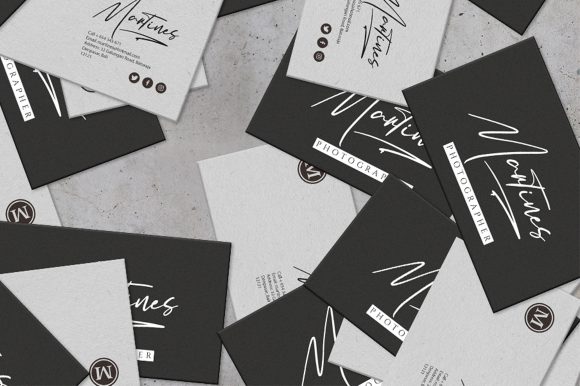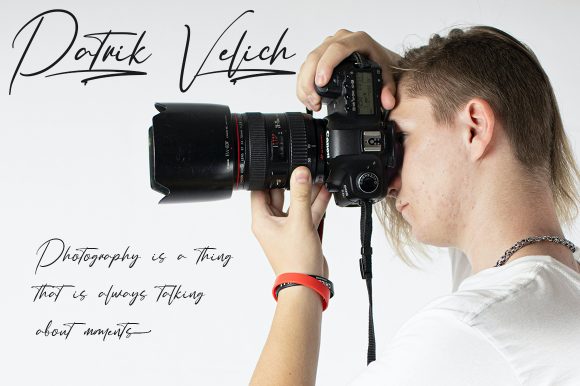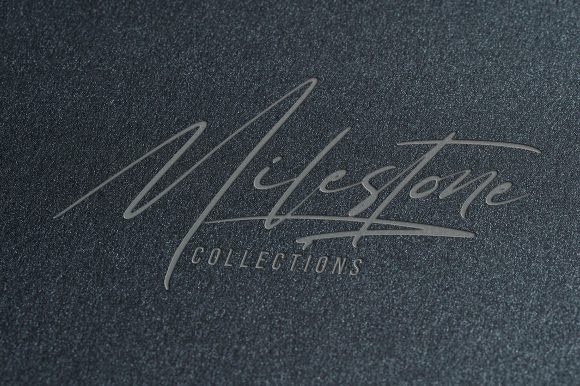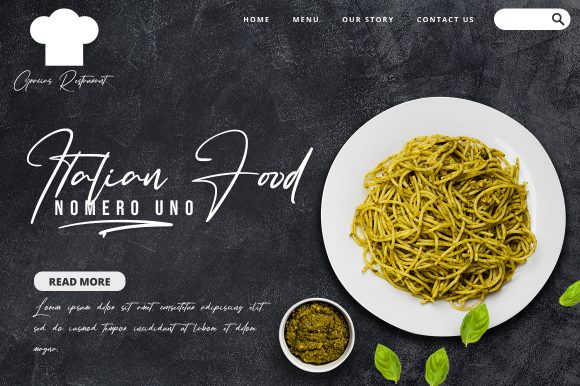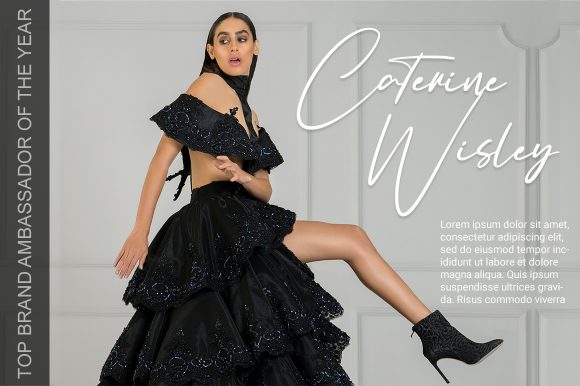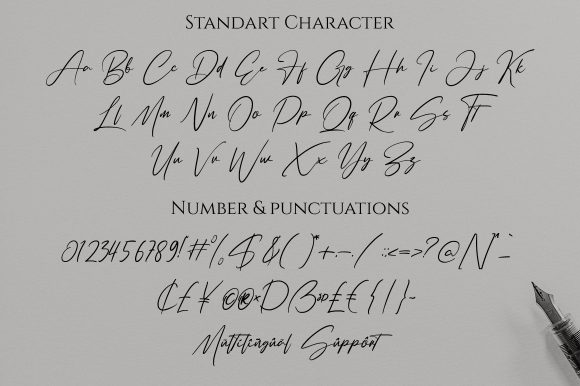
Introduction to Sailendra Font
Have you ever been working on a creative project, pouring your heart and soul into every detail, only to feel like something’s missing? That’s when the perfect design resource can make all the difference. For designers looking to add a touch of elegance and sophistication to their work, the Sailendra Font is a game-changer.
With its unique, handwritten style and beautiful touches, the Sailendra Font is the perfect choice for creating eye-catching logos, branding, and quotes. Whether you’re working on a high-quality design project or just need a free download to spice up your social media graphics, this font is sure to impress.
One of the best things about the Sailendra Font is its versatility. With PUA encoding, you can access all of the glyphs and swashes with ease, giving you endless possibilities for creative expression. And with a transparent background, you can seamlessly integrate it into your design without any fuss.
Key Features of Sailendra Font
- High-quality design resource ideal for creative projects, offering a unique and elegant aesthetic.
- Unique characteristics include intricate details and a sophisticated feel, making it perfect for luxury and high-end branding projects.
Honest Review: Sailendra Font
As a designer, I’m always on the lookout for high-quality fonts that can elevate my creative projects. Recently, I stumbled upon the Sailendra Font, and I must say it’s a gem. The Sailendra Font is a beautiful, free download that offers a unique and elegant design aesthetic.
What works well about the Sailendra Font is its versatility. It’s perfect for a wide range of creative projects, from print materials to digital designs. The font is available in both regular and bold weights, making it easy to customize and pair with other fonts. Additionally, the font’s transparent background makes it easy to layer and combine with other design elements.
Pros and Cons:
- ✨ High-quality design aesthetic
- ✨ Versatile and suitable for various creative projects
- ✨ Available in regular and bold weights
- ✨ Transparent background for easy layering
- ⚠️ Limited language support (only Latin script)
- ⚠️ Not suitable for projects that require complex typography
Overall, I’m thoroughly impressed with the Sailendra Font. It’s a fantastic addition to any designer’s arsenal, and I highly recommend it for any creative project. Just be aware of its limitations, and you’ll be all set to create stunning designs with this beautiful font.
Tips for Getting the Most Out of Sailendra Font
To get the most out of the Sailendra Font, use it in conjunction with other design elements to create a visually appealing and cohesive design. Experiment with different font sizes, colors, and arrangements to achieve the desired effect.
The Sailendra Font is commonly used in creative projects such as branding, logos, and marketing materials. It can also be used in educational and informational materials, such as brochures and posters.